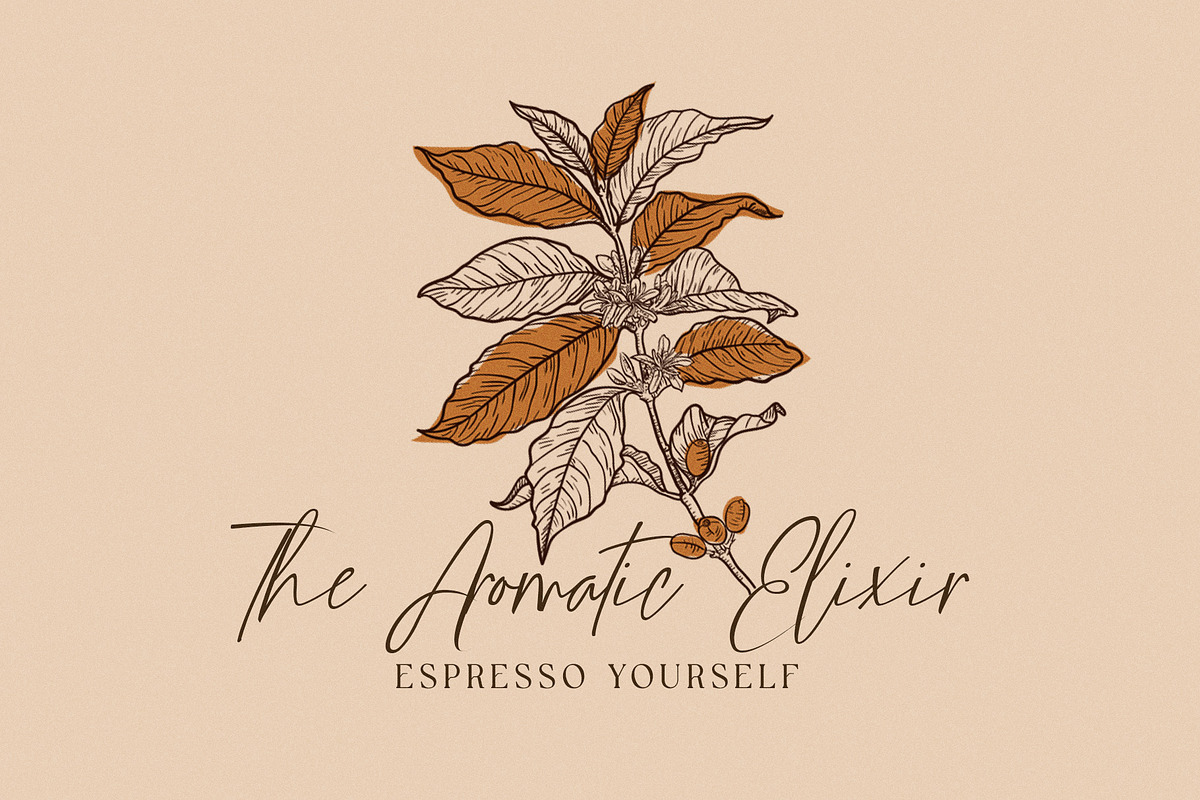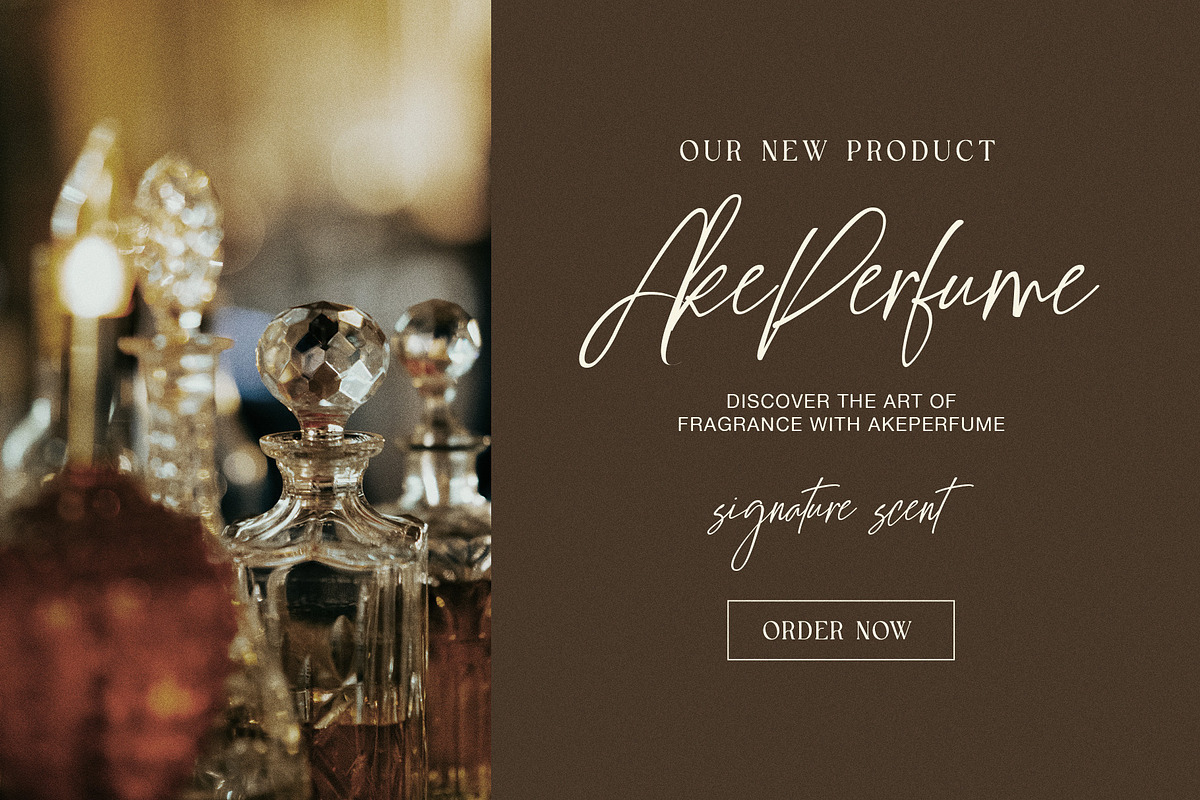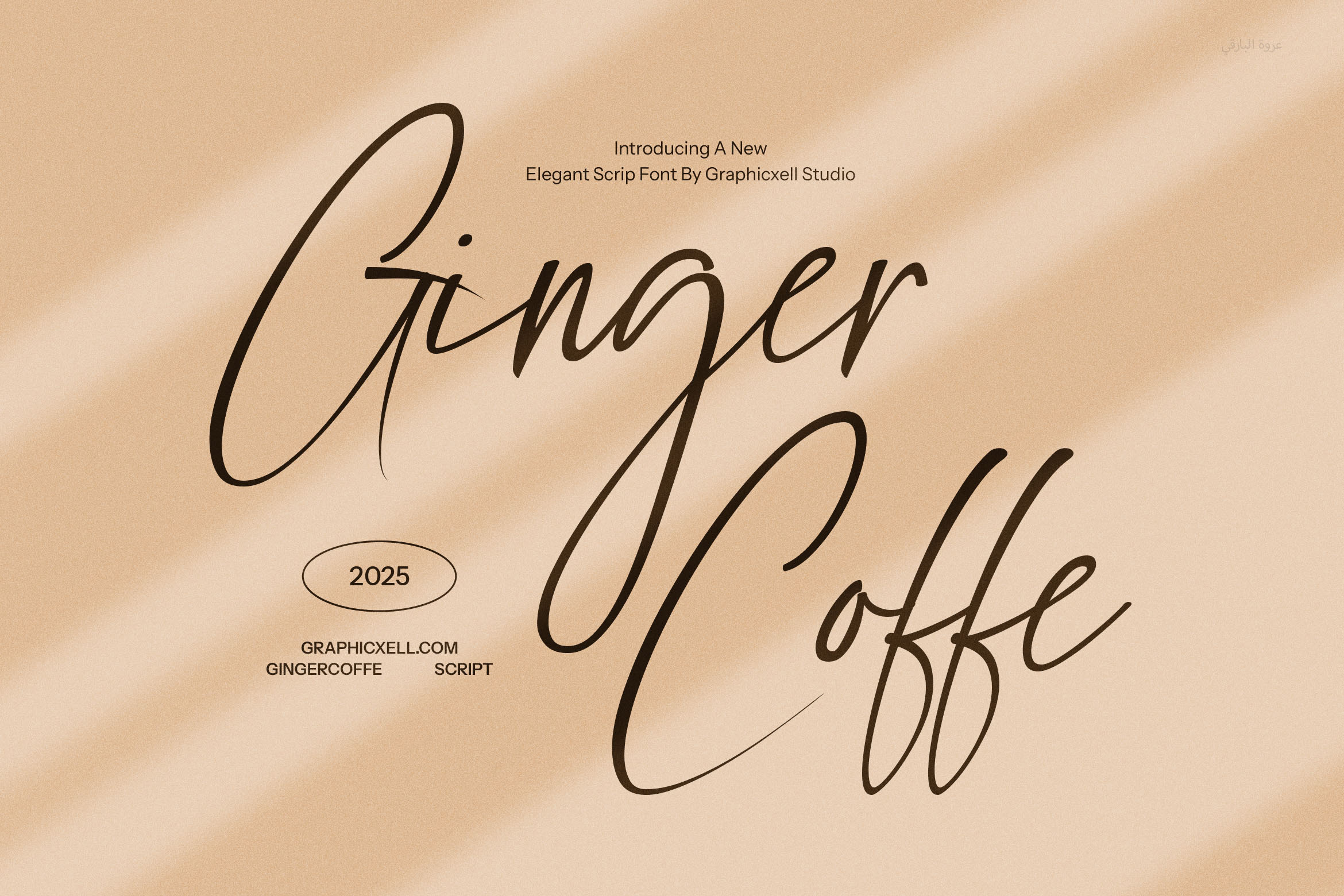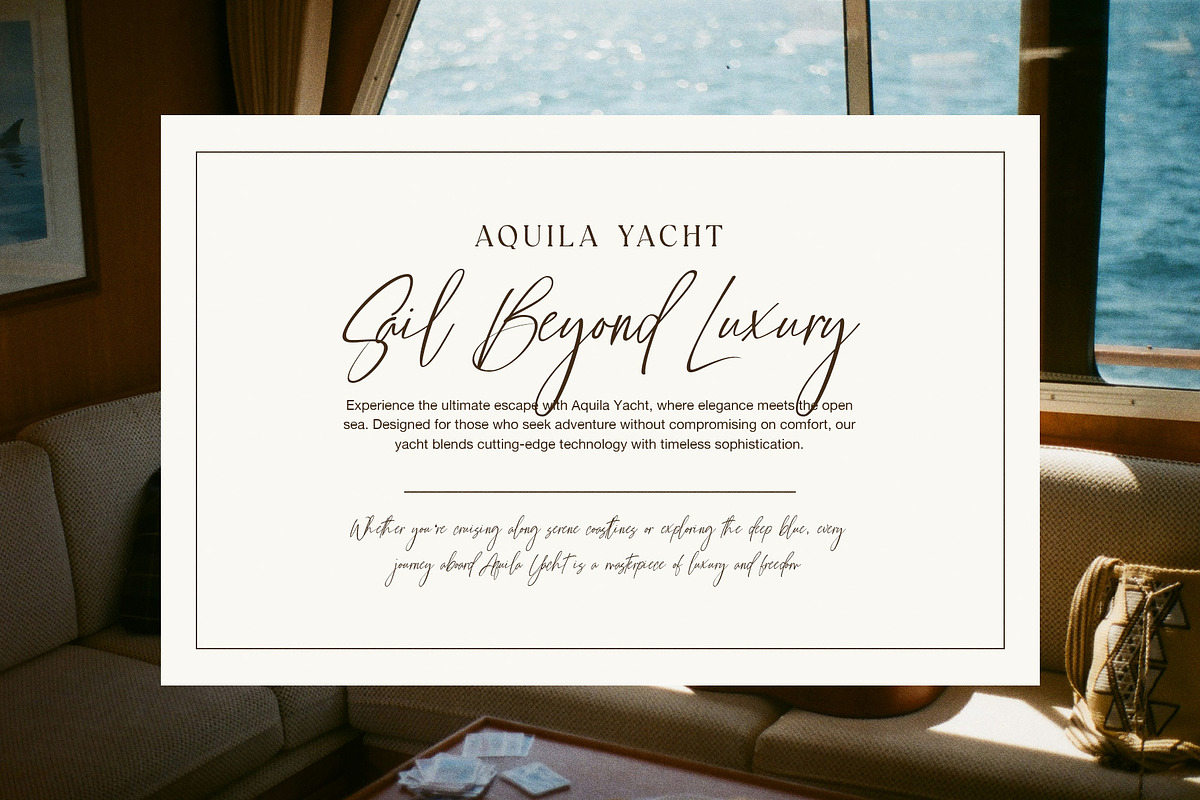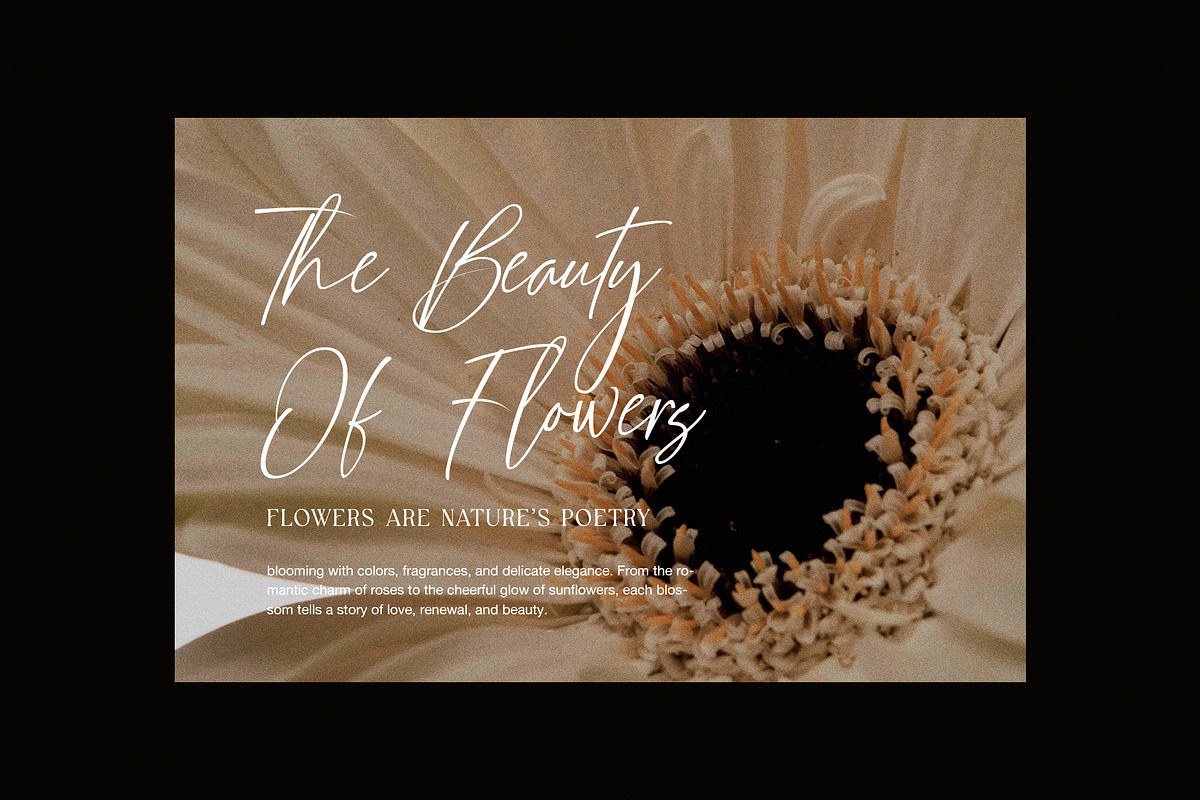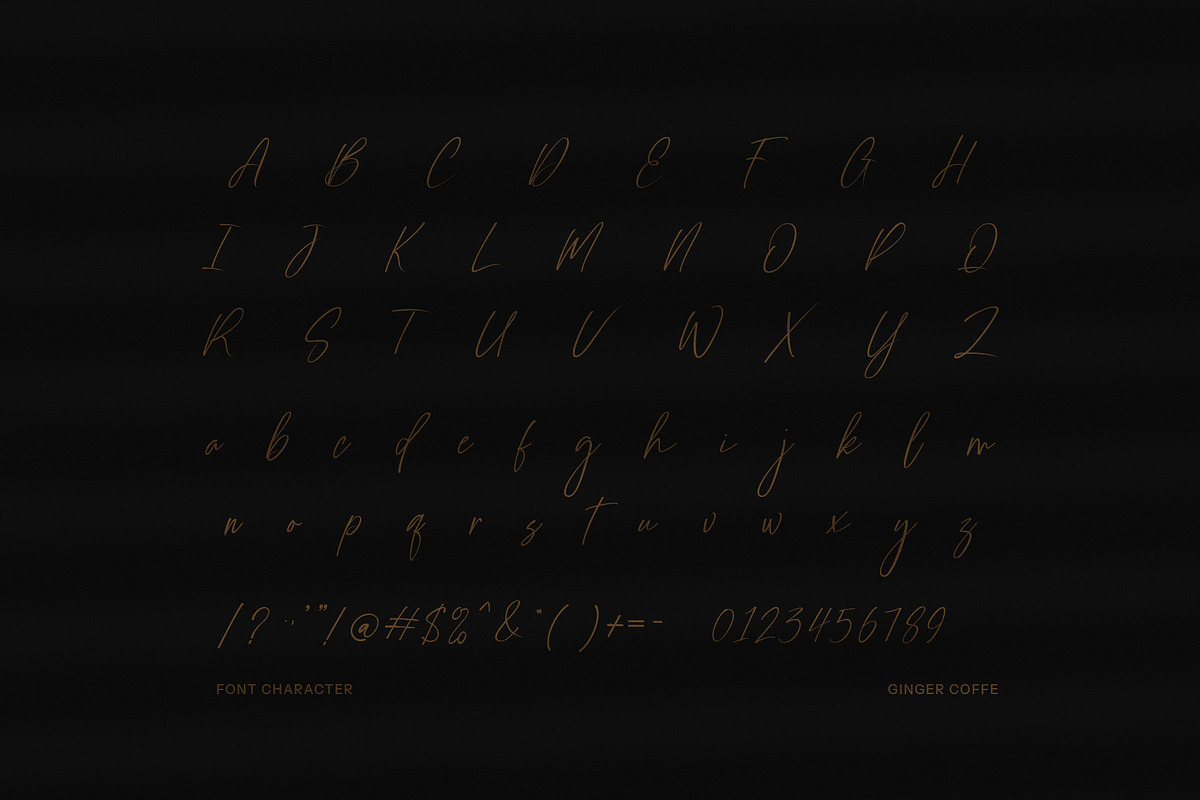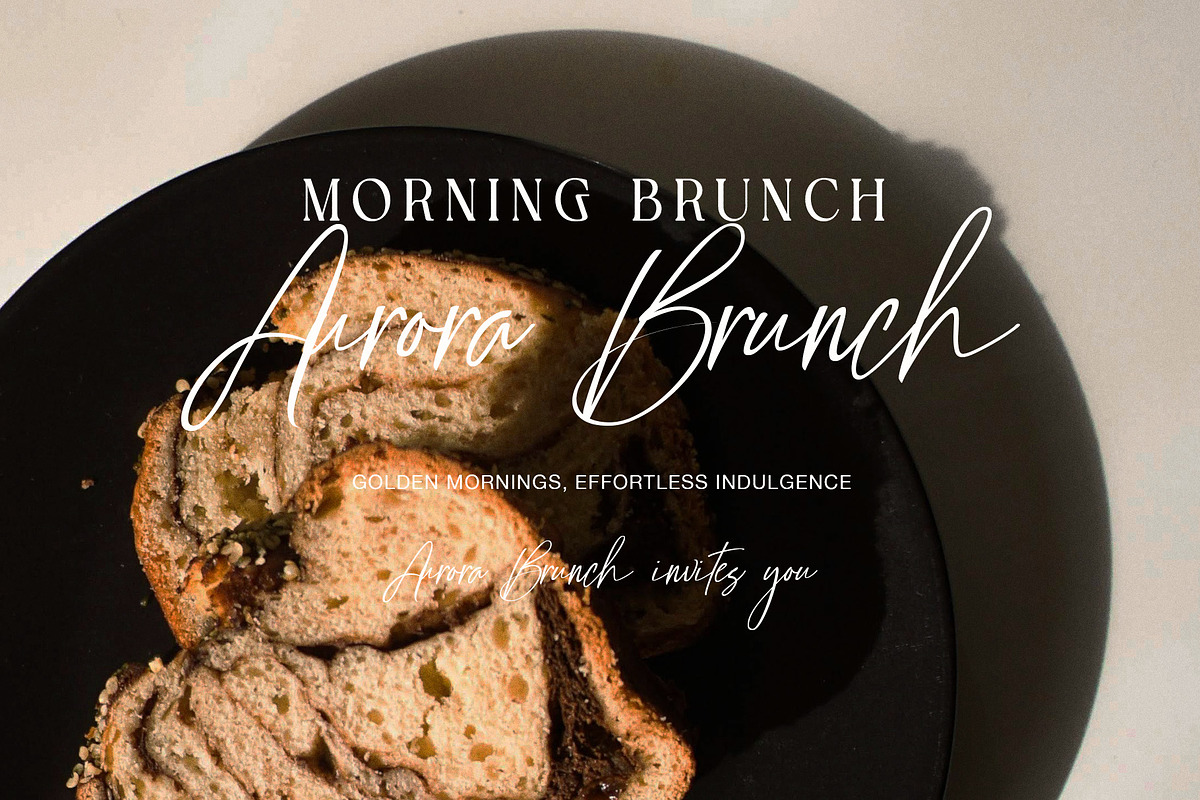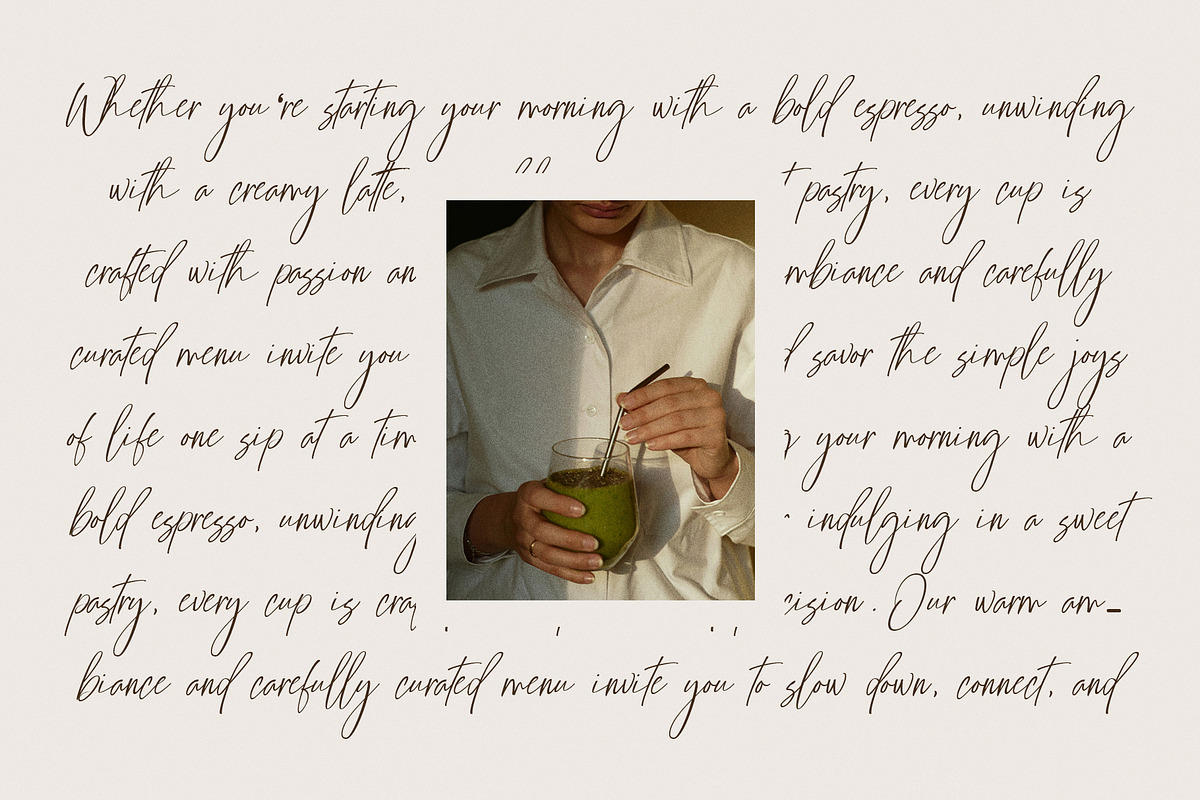
Ginger Coffe Signature Font
Ginger Coffe Signature Font is a beautifully refined script typeface that exudes charm, warmth, and understated elegance. Designed with a smooth, flowing style and a touch of modern sophistication, this font is perfect for creating authentic handwritten signatures, upscale branding, and stylish visual identities. Its graceful curves and rich variety of calligraphic alternates bring a personalized, handcrafted feel to every letter.
Whether you're working on wedding invitations, logo designs, business cards, or magazine covers, Ginger Coffe delivers a polished, elegant finish that stands out in both digital and print formats. Its natural, free-flowing script is enhanced with a wide range of stylistic alternates and ligatures, giving you endless creative possibilities and full control over your design aesthetic.
Ginger Coffe is particularly ideal for luxury branding, fashion blogs, photography watermarks, album artwork, and social media graphics. Compatible with Canva, Adobe Illustrator, Photoshop, and other design tools, this font is both accessible and highly versatile for designers of all levels.
From romantic event stationery to modern website headers, Ginger Coffe Signature Font brings sophistication and personality to every project. Its combination of elegance and warmth makes it the perfect choice for creatives seeking a refined, yet approachable handwritten style.
Let your designs speak with style, elegance, and heart—Ginger Coffe is more than just a font; it’s a signature of your creativity.